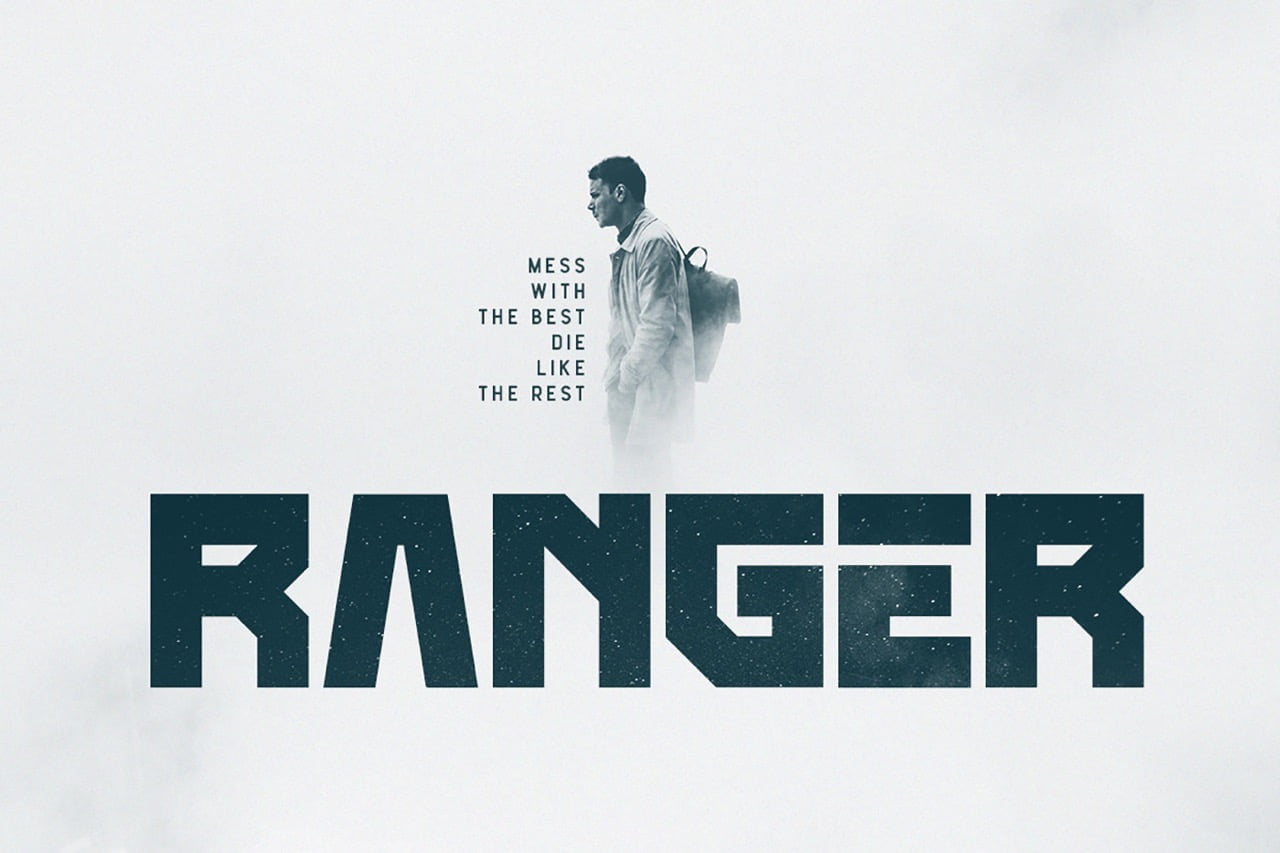
Bastille is a bold, modern font with a sense of adventure and movement. This typeface is perfect for many different projects: quotes, blog headers, posters, wedding invitations, branding, logo design, fashion or apparel design.
• 2 Styles (Regular and Italic)
• Basic Latin A-Z and a-z
• Numerals & Punctuation
Bastille Bold Font